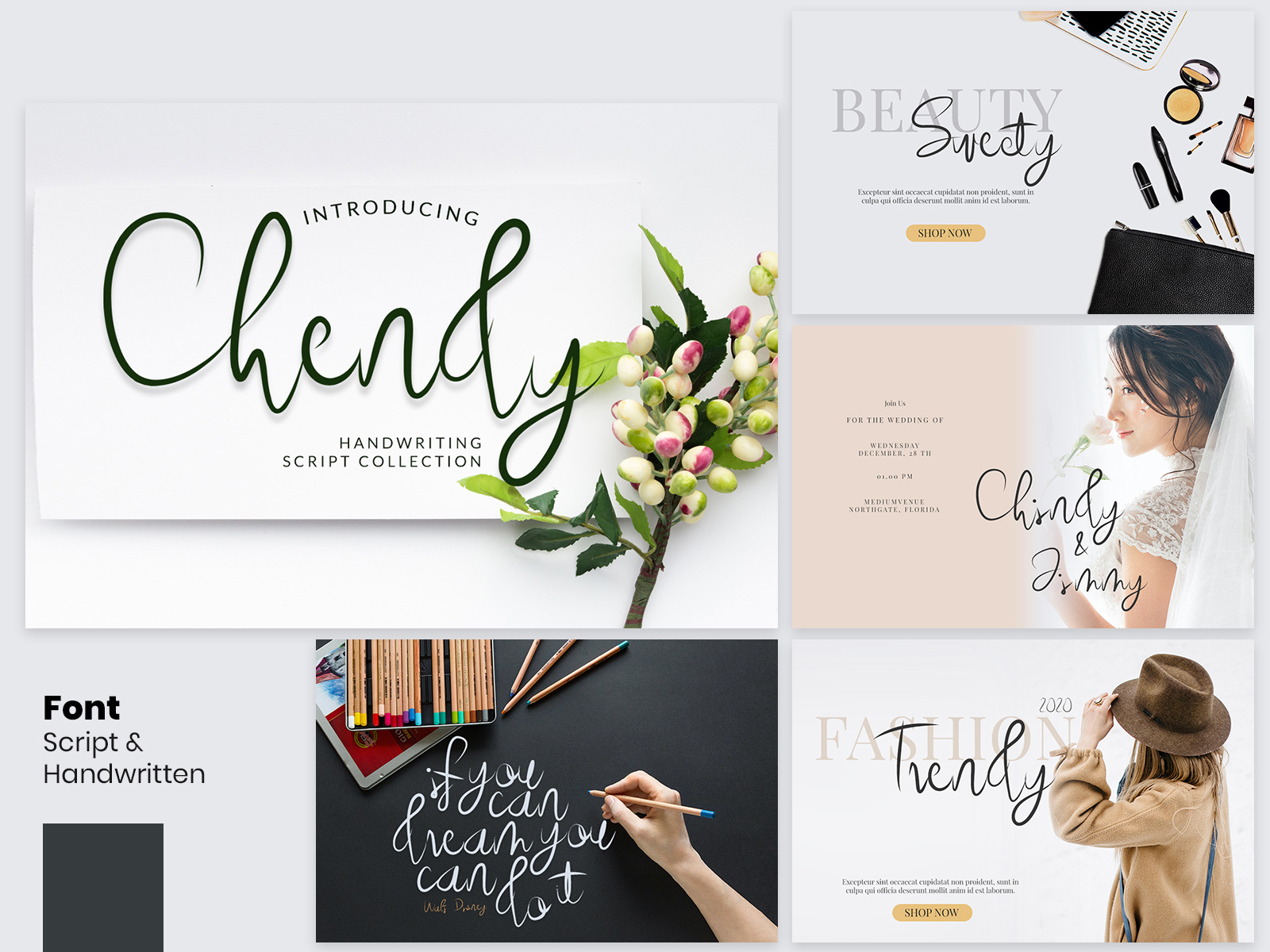
Chendy Font Script
Chendy is a beautiful and modern handwritten Typeface script. This font is suitable for all project products, such as wedding invitations, greeting cards, fashion, quotes, and various other purposes and more. Feature: – Uppercase – Lowercase – Number & Puntuation – Multilingual & Ligature Check Out Full Version https://fontbundles.net/rana-creative/548718-chendy